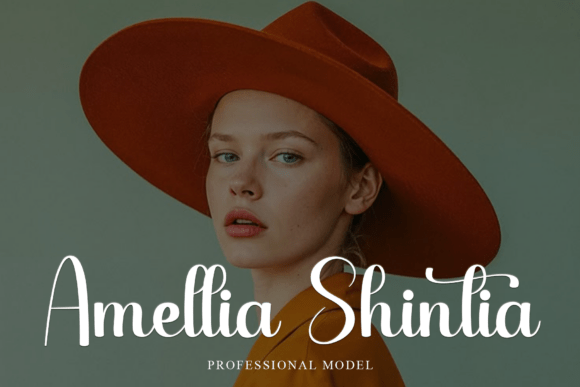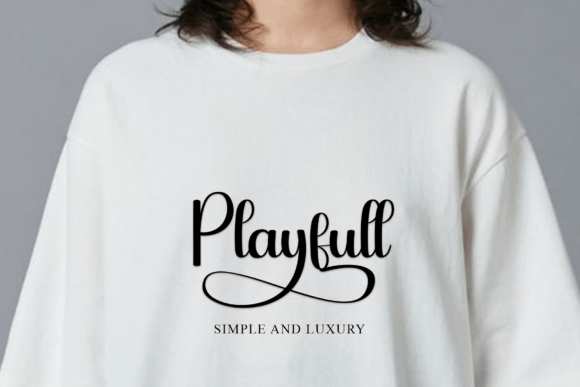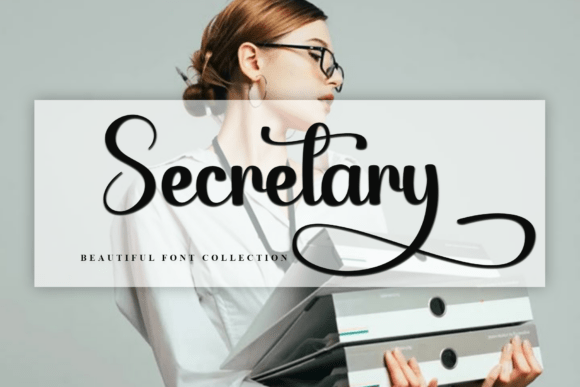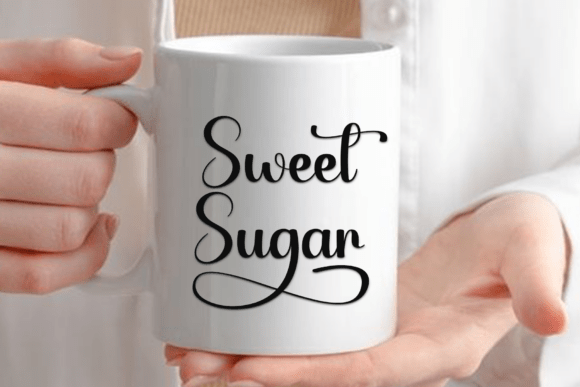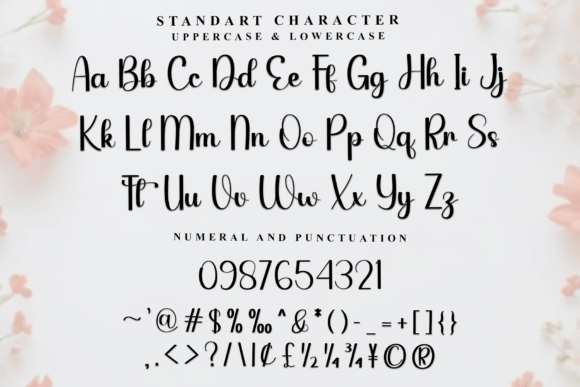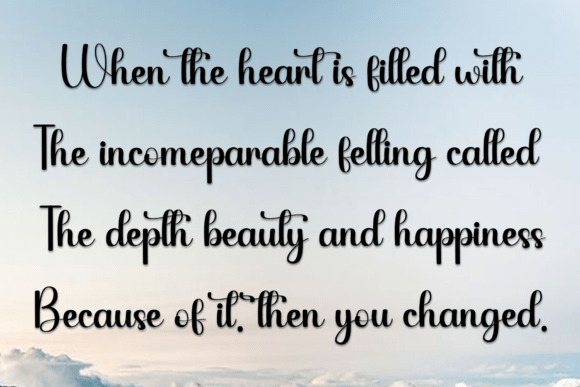
The Delight Font: A Timeless Choice for Creative Designs
Have you ever been in the middle of a design project, pouring your heart and soul into every detail, only to hit a roadblock when it comes to choosing the perfect font? I certainly have! It was during one of those moments that I stumbled upon the Delight font, a lovely and timeless handwritten font that has since become a staple in my design toolkit.
A Personal Encounter with Delight
I was working on a branding project for a small business, and the client was looking for a font that was both elegant and playful. After hours of searching, I finally came across Delight, and it was love at first sight! The unique and beautiful touch of every letter immediately caught my attention, and I knew I had found the perfect fit for the project.
An Honest Review of Delight
- ✨ Unique and beautiful letterforms that add a touch of elegance to any design
- ✅ Highly versatile and suitable for a wide range of design projects, from logos and branding to quotes and social media graphics
- 💫 Excellent for creating eye-catching titles and headings that grab attention
- 👍 Easy to read and understand, even in smaller sizes
While Delight is an amazing font, it’s not perfect. Here are a few things to keep in mind:
- ⚠️ Some letters may appear a bit inconsistent in terms of spacing, which can affect the overall flow of the text
- 🤔 Limited availability of stylistic alternates, which may limit the font’s flexibility in certain design contexts
The Backstory of Delight
Delight was designed by a talented type designer who wanted to create a font that was both elegant and approachable. Inspired by traditional handwriting, Delight features a unique and beautiful touch that’s perfect for a wide range of design projects.
Q: What is the Delight font best suited for?
A: Delight is perfect for creating eye-catching logos, branding, and quotes. Its unique and beautiful letterforms make it an excellent choice for designs that require a touch of elegance and sophistication.
Q: Is Delight a difficult font to read?
A: No, Delight is an easy-to-read font that’s suitable for both print and digital designs. Its clear and elegant letterforms make it perfect for designs that require a high level of legibility.